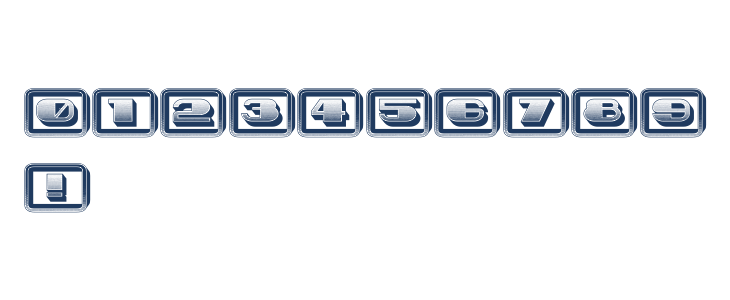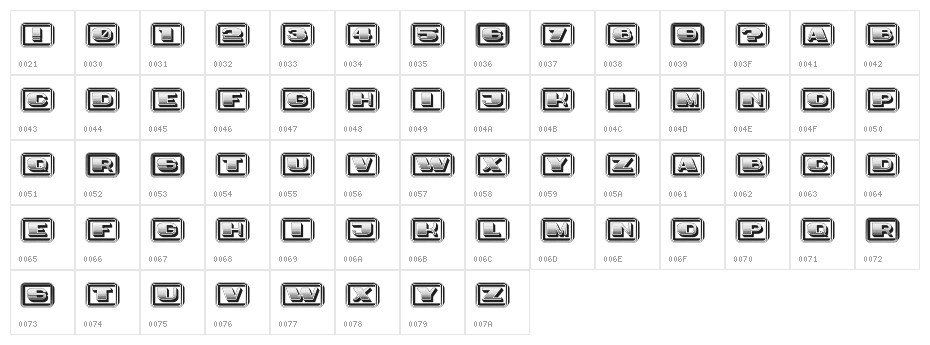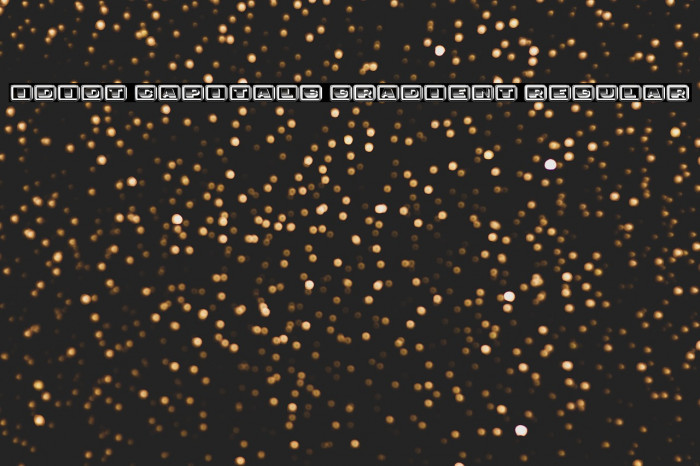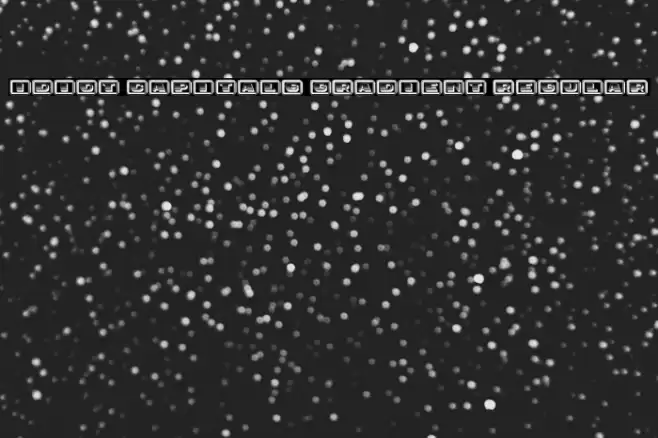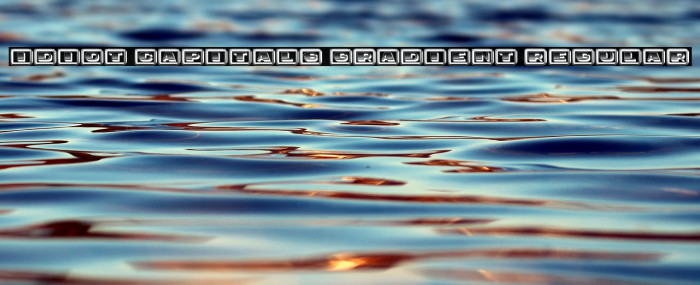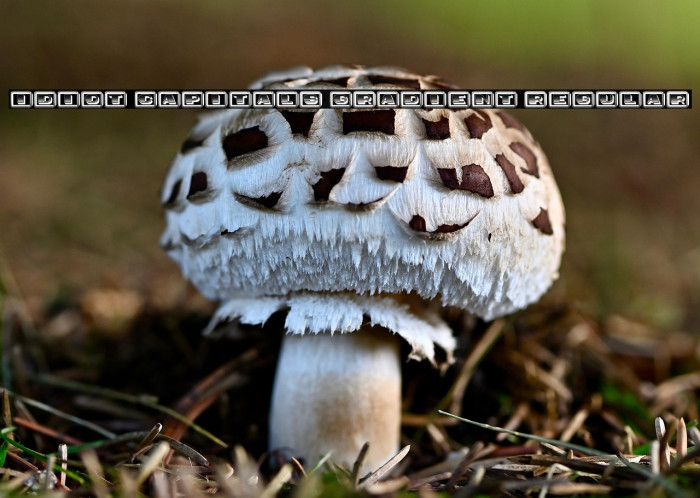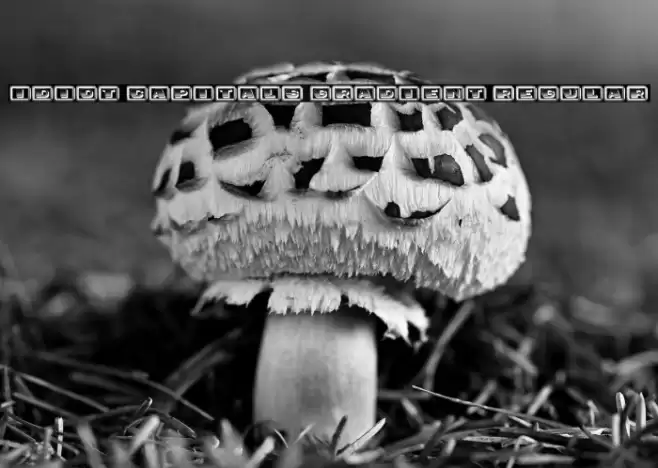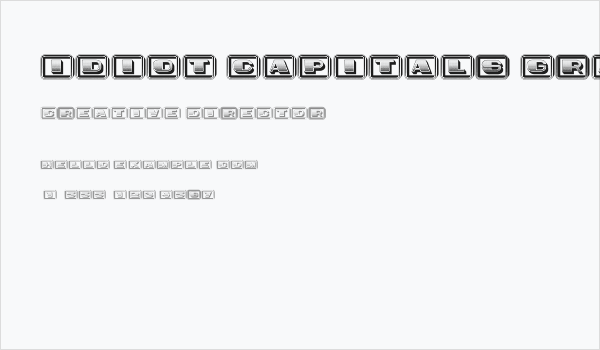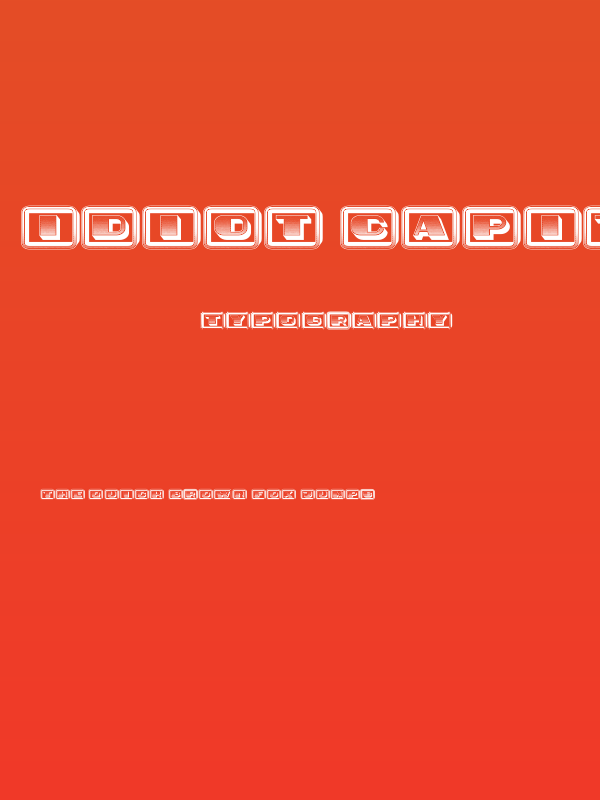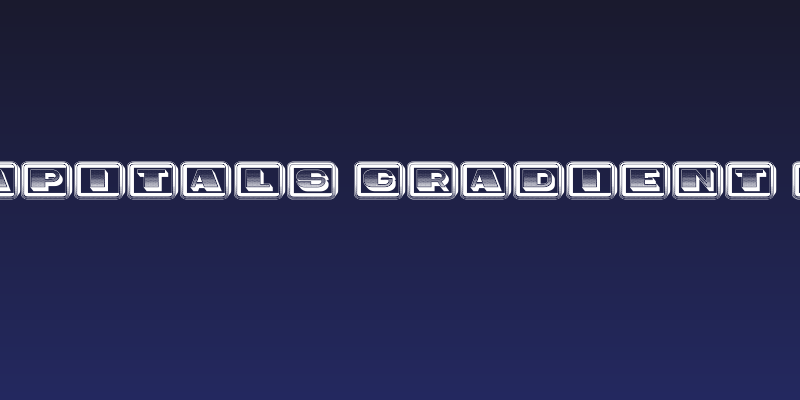
Idiot Capitals Gradient Regular Font
Idiot Capitals Gradient Regular Description
This font features a bold, three-dimensional style with a metallic gradient effect. Each character is encased in a rectangular border, giving it a distinct, button-like appearance. The letters are uppercase, with a consistent height and width, creating a uniform look. The gradient effect adds depth, making the characters appear as if they are embossed or raised. This design is highly decorative, making it suitable for attention-grabbing headlines or logos. The font's unique style is reminiscent of retro digital displays or arcade game aesthetics.
| Overall Style | Retro, Decorative |
| Proposed Projects | Ideal for retro-themed designs, video game graphics, posters, and logos. |